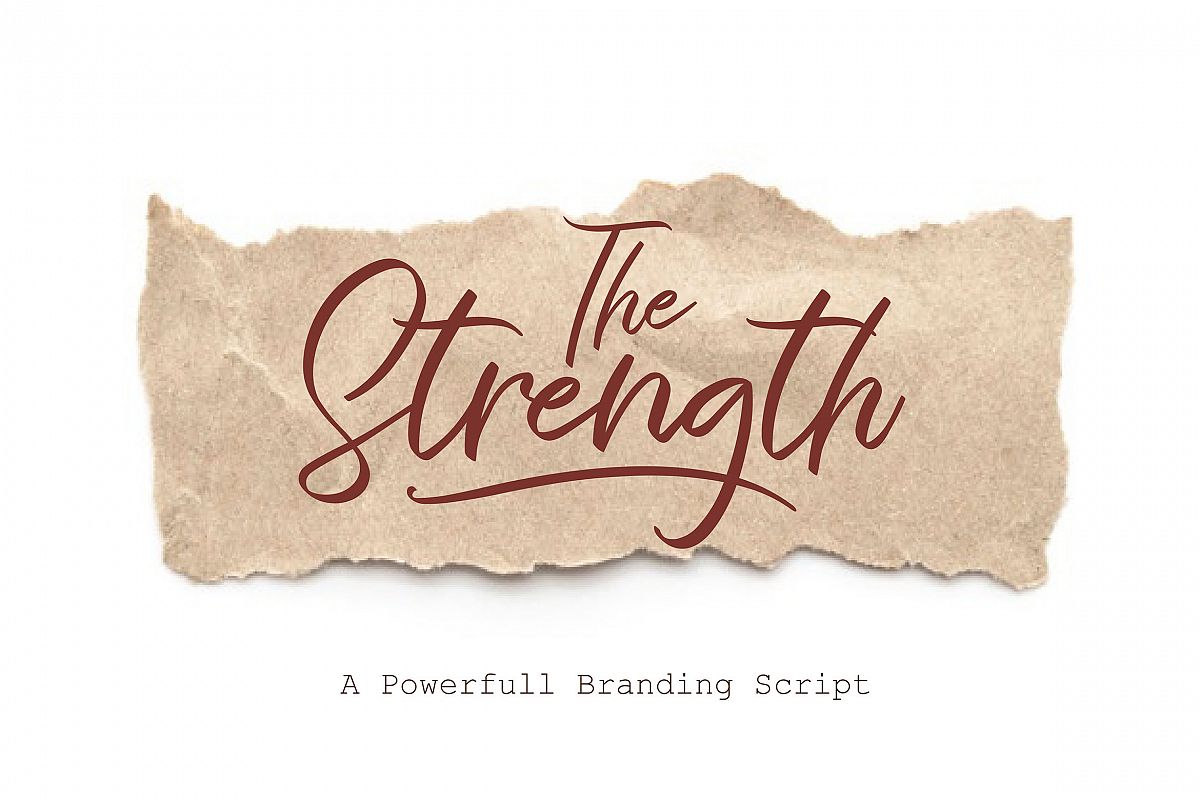
The Strength - A Branding Script
The Strength
Effortlessly take your branding to the next level with The Strength Font.
The Strength is a powerfull classy script, full of personality and curves. This font was designed using quick strokes to create natural handwritten, to give the font a natural look in a digital world.
Perfect for any awesome project that need hand writing taste.This is suitable for logos, watermarks on photography, signatures, branding, advertisement, quotes, invitations, stationery, wedding design,album covers, business cards, clothing, magazines, posters, and more!
As usual ,the font comes with many opentype features such as Alternates,Ligature,Title and Ending Swash, and underlines. Mix and match a regular and alternates to get a new ligature. Also support multilingual. You can access all those alternate characters by using Opentype or Glyph program such as Adobe Illustrator cs,Adobe Photosop cc, Adobe InDesign, etc.